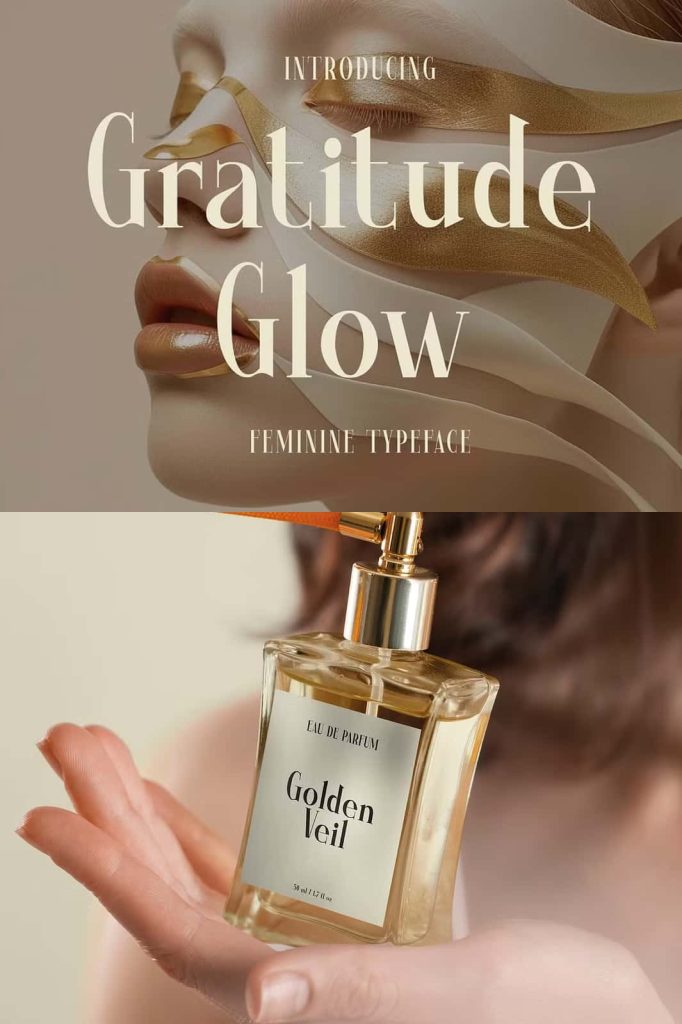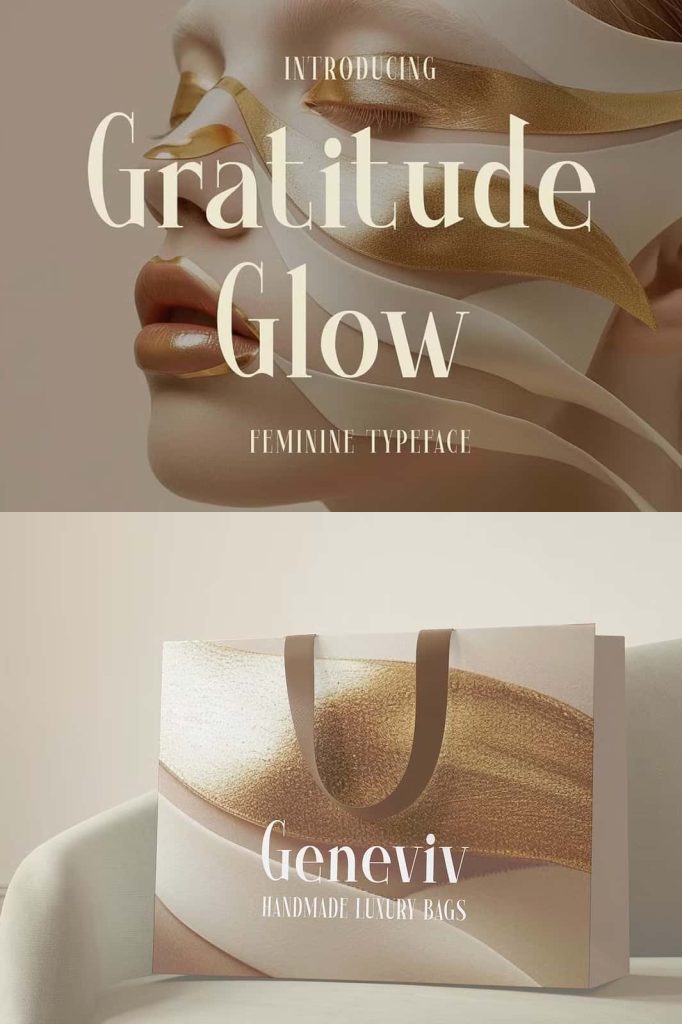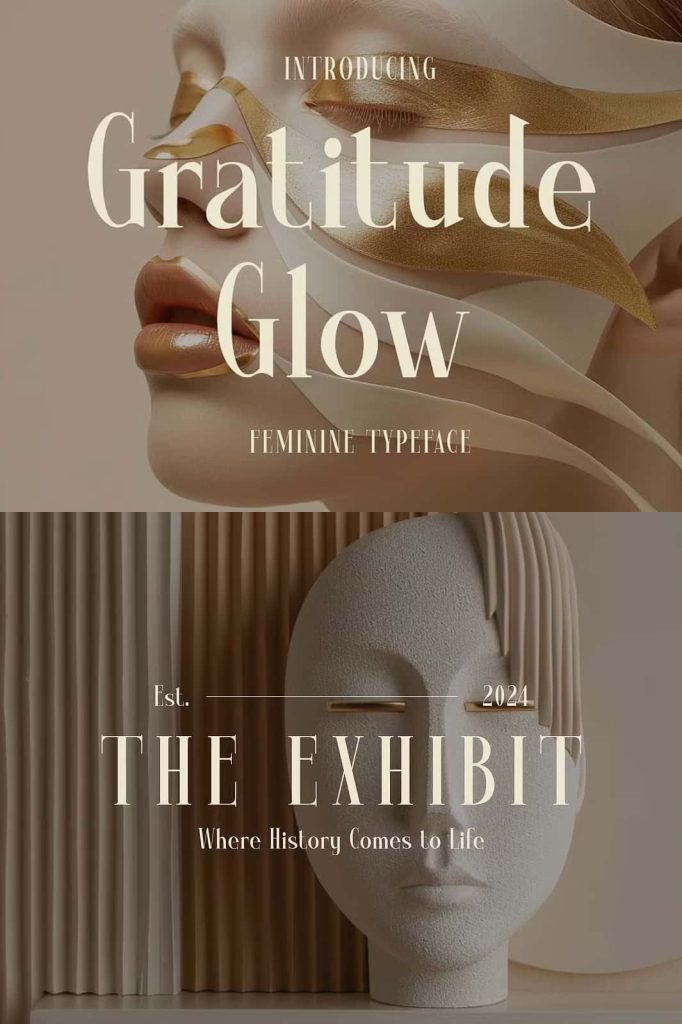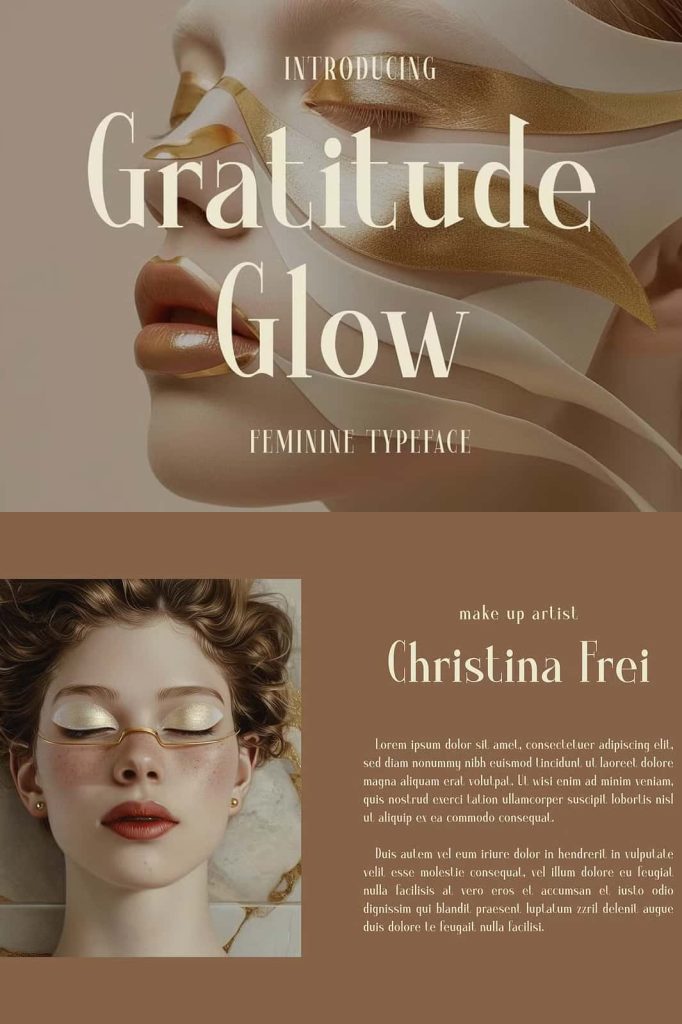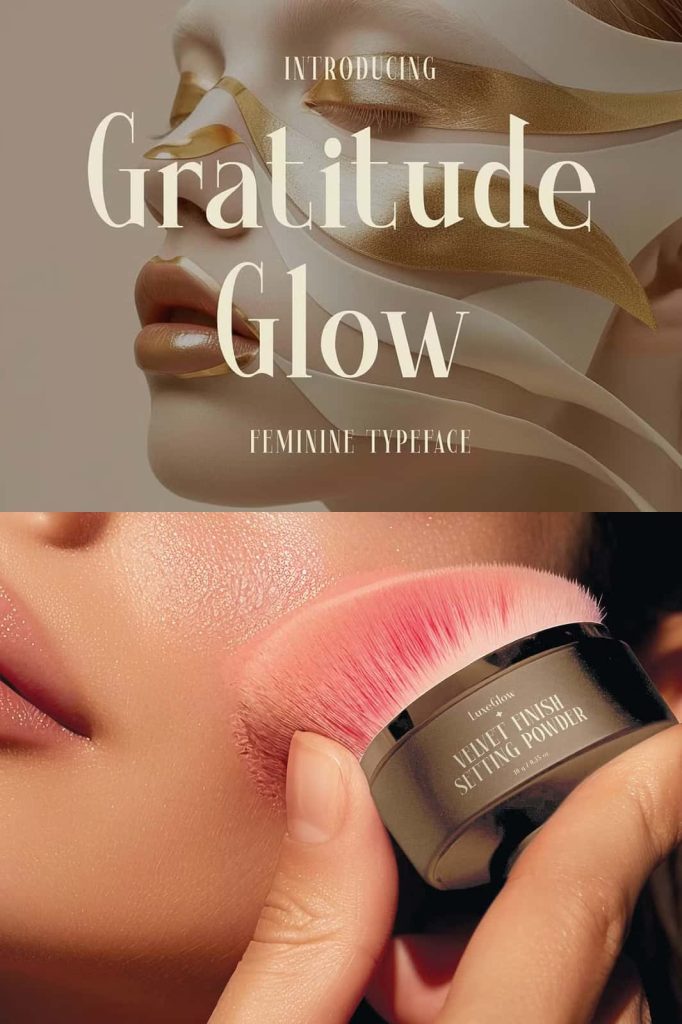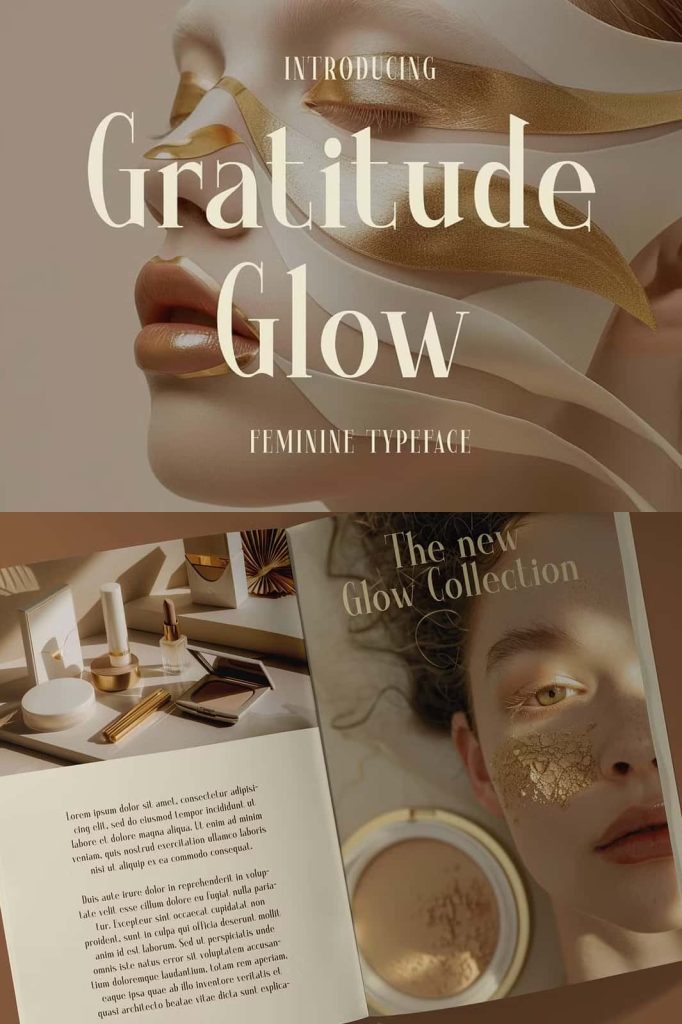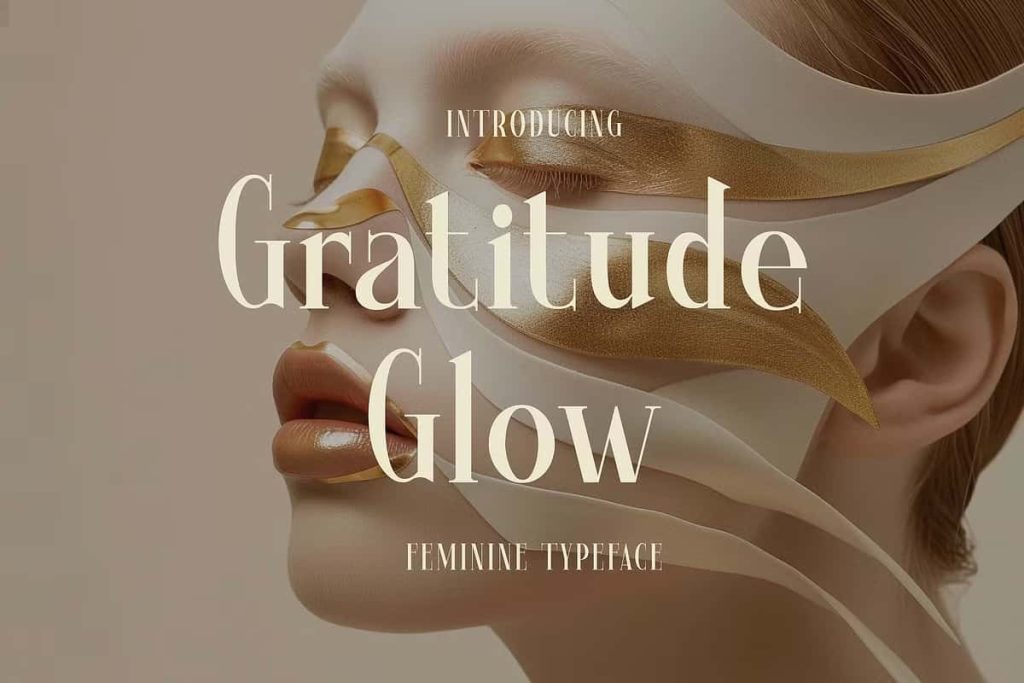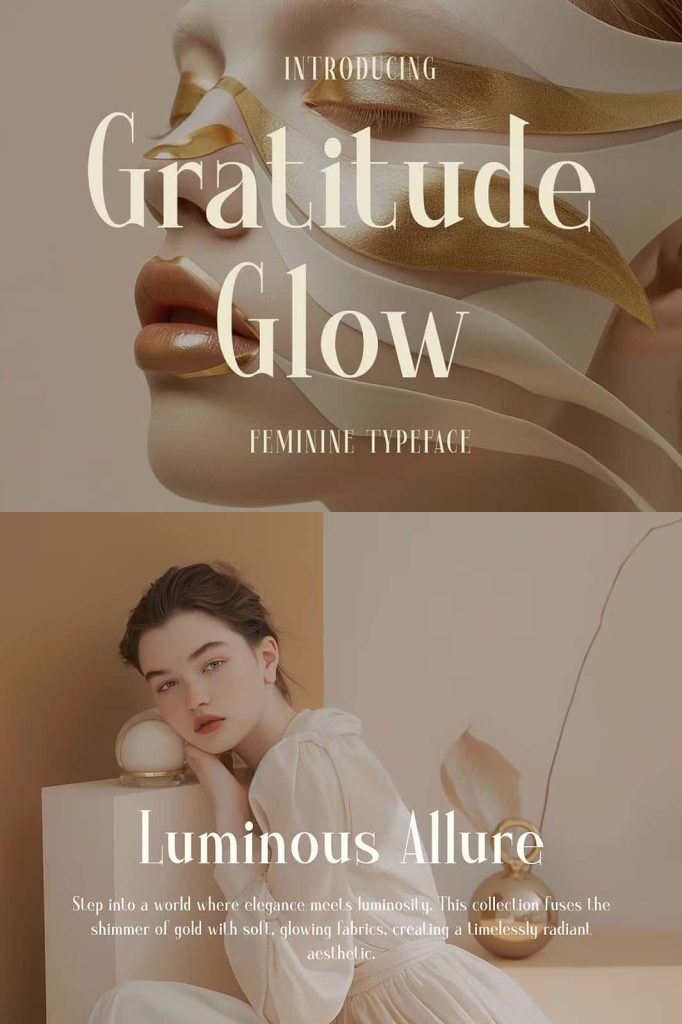
Introducing Gratitude Glow, where elegance meets modernity. This sophisticated serif typeface radiates with timeless beauty and a refined sense of style.